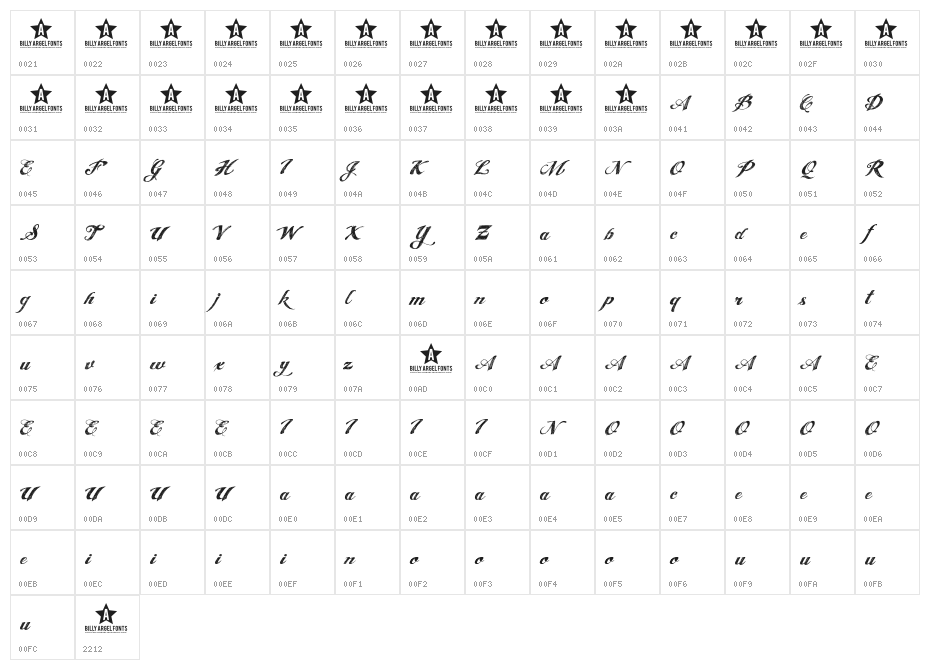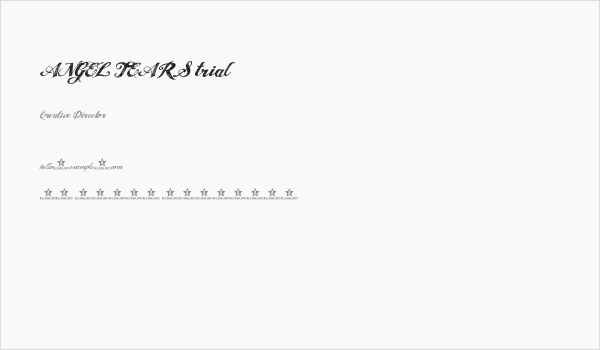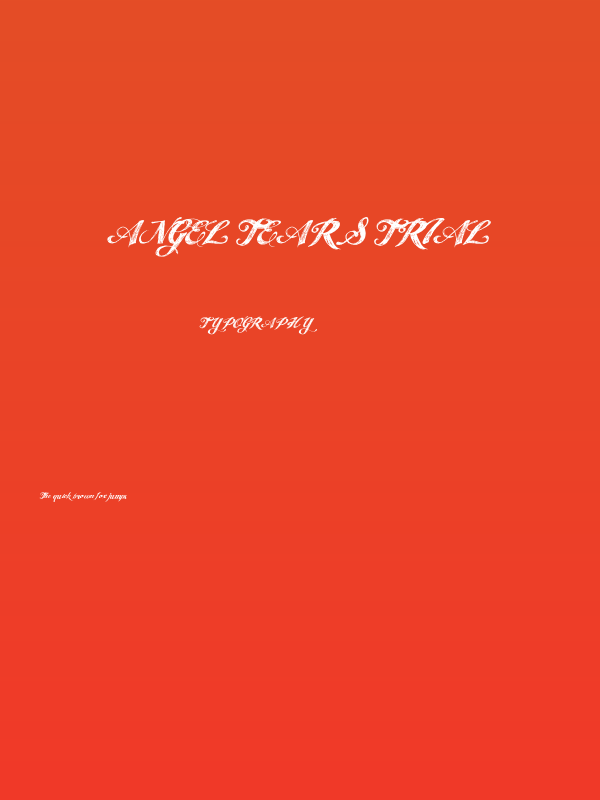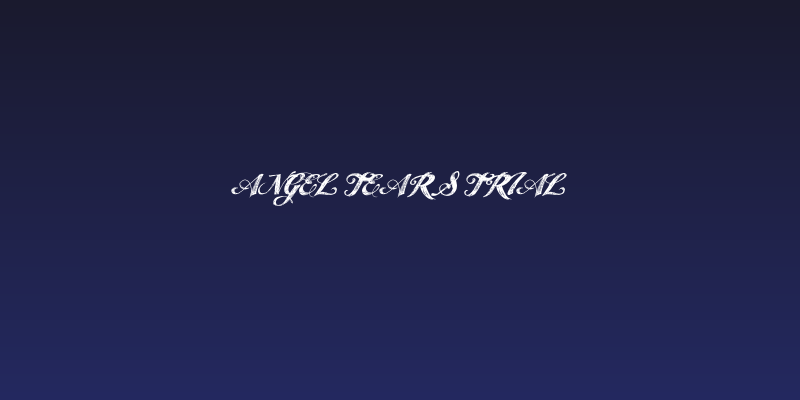
ANGEL TEARS trial Font
ANGEL TEARS trial Description
This font features a dramatic and elegant script style with a calligraphic influence. The letters are characterized by sweeping curves and flourishes, giving it a sense of movement and grace. The uppercase letters are particularly ornate, with exaggerated loops and swashes that add a decorative flair. The lowercase letters maintain a consistent style, with a slightly more restrained design that complements the uppercase. The overall appearance is both sophisticated and artistic, making it suitable for projects that require a touch of elegance and creativity.
| Proposed Projects | Ideal for wedding invitations, greeting cards, branding, and logo design where a touch of elegance is desired. |